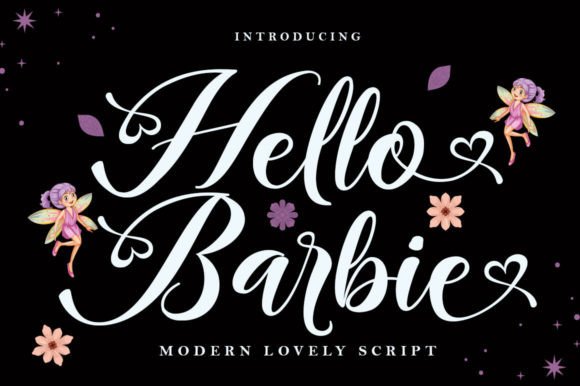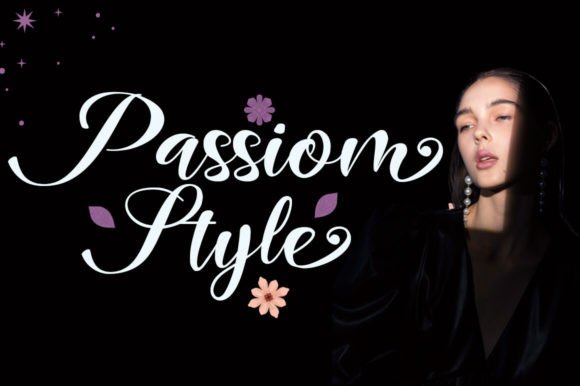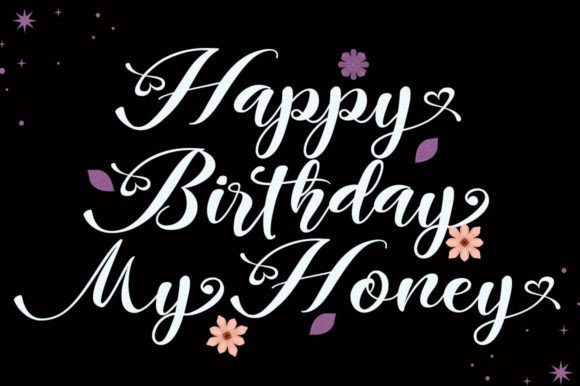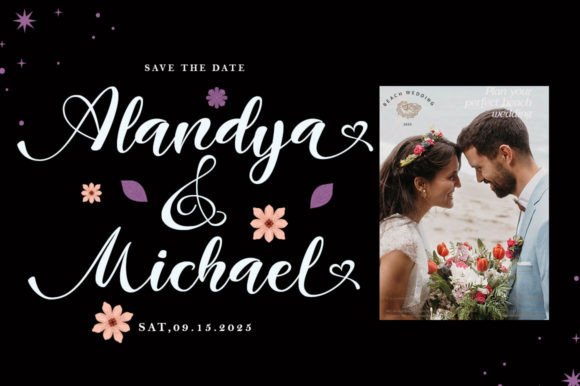
Hello Barbie Font
About the Hello Barbie Font
Get ready to be inspired by Hello Barbie Font, a fresh and dynamic typeface for modern creators. Hello Barbie is a dazzling script font that exudes elegance and charm. With its fluid strokes and intricate details, it captivates the eye and adds a touch of sophistication to any design project. Perfect for invitations, branding, and headlines, Hello Barbie brings a sense of luxury and style to your creations.
Hello Barbie’s elegant, flowing forms make it ideal for projects requiring a touch of high-end sophistication. It shines in applications such as logos, wedding invitations, and short headlines where its decorative qualities can be fully appreciated. However, its intricate details make it less suitable for body text or UI elements where readability is paramount. Extended use could hinder legibility.
For optimal impact, pair Hello Barbie with a clean sans-serif like Montserrat or a more geometric font such as Bebas Neue for contrast. This juxtaposition balances its decorative style with modern clarity. A simple serif like Lora could also work well, providing a classic counterpoint to the script’s fluidity.
The overall personality of Hello Barbie is undeniably elegant and feminine, lending itself to brands associated with luxury goods, high fashion, or special events. Its charm is best showcased in contexts that prioritize visual appeal over extensive text.